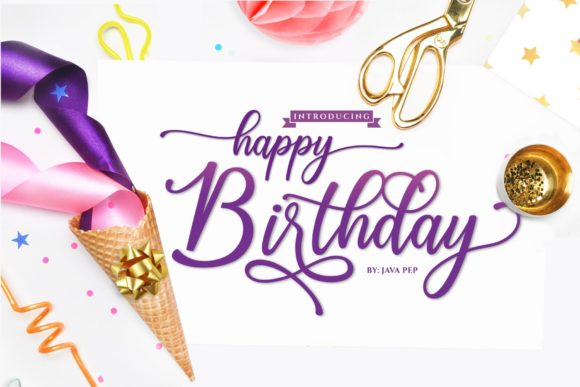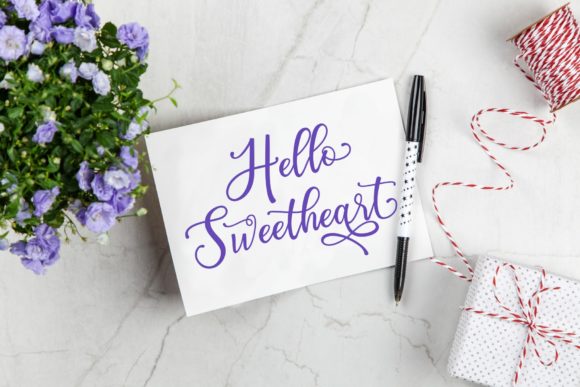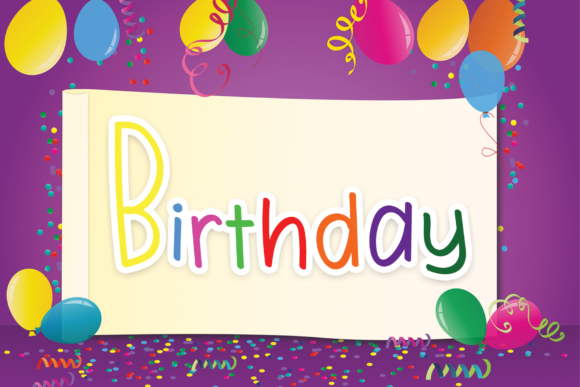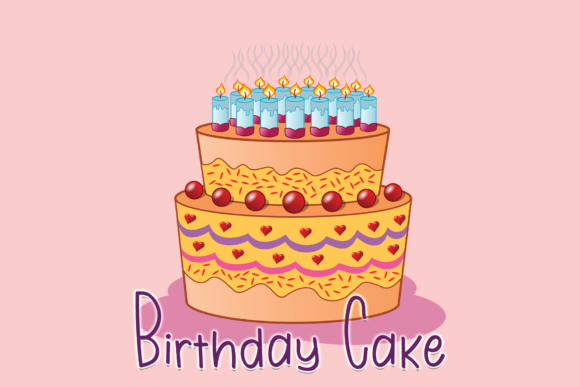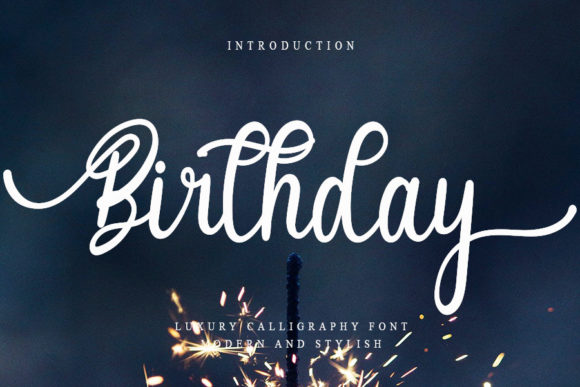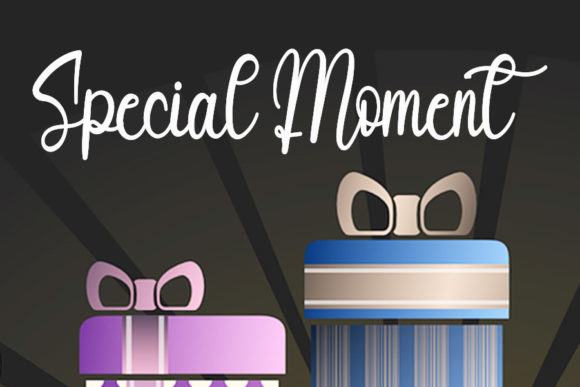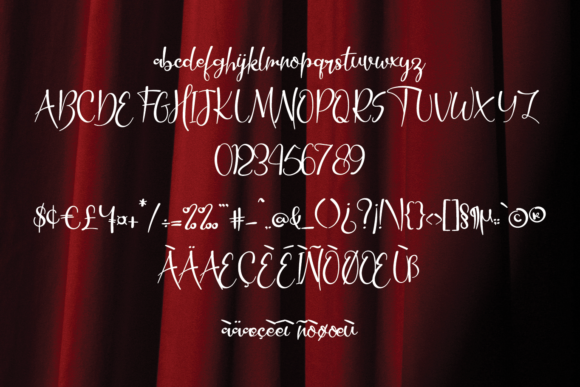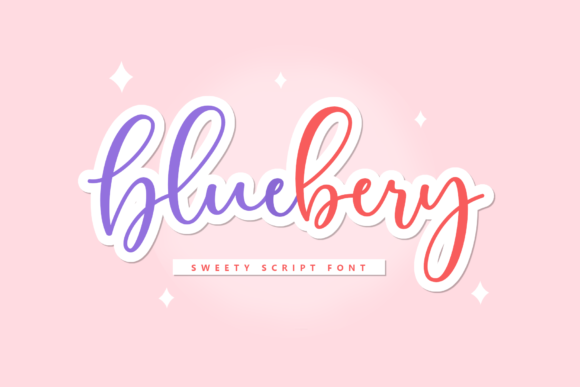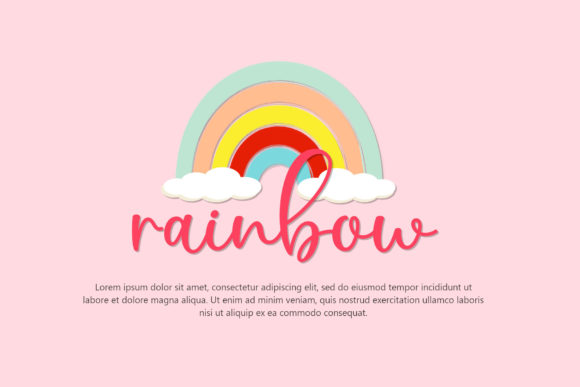
21 Best Birthday Script Fonts to Elevate Your Celebratory Designs
Planning a special event requires attention to every detail, from the color palette to the paper stock. However, nothing sets the tone quite like professional-grade birthday script fonts. Whether you are drafting elegant party invitations, designing personalized greeting cards, or crafting festive banners, the right typography can transform a simple message into a memorable keepsake. Our carefully curated list explores the most versatile and eye-catching script styles available today.
Top 21 Birthday Script Fonts for Every Occasion
Daisy Birthday Font
This charming, flowy handwritten typeface is the perfect choice for creating whimsical birthday-themed designs, invitations, and cards using professional-grade birthday script fonts. Its organic feel conveys warmth and joy.
Birthday Graduatings Font
An elegant and celebratory typeface, perfect for designing greeting cards, graduation invitations, and other special festive occasions. It brings a polished look to your stationery suite.
Write Birthday Font
This delightful birthday script font features charming, fluid lettering that brings a professional and joyful touch to party invitations and greeting cards.
Birthday Font
This charming, celebration-themed script font brings a playful yet sophisticated touch to your greeting cards. Using high-quality birthday script fonts ensures your design stands out with style and elegance.
Birthday Present Font
This delightful handwritten typeface is perfect for crafting festive cards and personalized gifts. Its effortless style adds warmth to any creative project.
Birthday Daddy Font
Bring a playful mood and personal charm to your celebratory projects. This font is an ideal choice for invitations and banners.
Happy Birthday Font
As a fantastic option among professional birthday script fonts, this typeface masterfully combines playful energy with charming handwritten aesthetics.
Birthday Font
This charming handwritten style is perfect for festive cards and invitations, adding an elegant touch to any project.
Style Birthday Font
This delightful handwritten typeface brings a sense of joy to any design project requiring a personal, bespoke touch.
Birthday Christmas Font
Ideally balancing festive playfulness with elegance, this typeface is the perfect addition to any collection of birthday script fonts for seasonal celebrations.
Birthday Font
Combine playful typography with elegant curves using this versatile typeface, perfect for event invitations.
Master Birthday Font
This stylish typeface is perfect for crafting elegant invitations and greeting cards, adding a sophisticated touch to your festive designs.
Annets Birthday Font
Annets Birthday is a playful script font that complements any festive occasion. Its calligraphic letterforms bring unique personality to your projects.
Bluebery Font
Bluebery is a must-have among birthday script fonts, adding a whimsical, personalized touch to your thematic party stationery.
Its My Birthday Font
This celebratory handwritten typeface is perfect for all festive decor in the classic style of professional birthday script fonts.
Love Birthday Font
Love Birthday is an elegant typeface perfect for crafting charming cards. Its fluid strokes bring warmth to any project.
Happy Birthday Font
Highlight your elegant and playful style with this excellent choice from the range of birthday script fonts.
Birthday Valentine Font
This typeface features fluid strokes and a romantic aesthetic. Its elegant style adds a touch of tenderness and playfulness to cards and invitations.
Birthday January Font
An elegant and celebratory script font, this is perfectly suited for creating eye-catching invitations and greeting cards within the birthday script fonts category.
Birthday Font
This elegant and celebratory font is the perfect choice for any design project centered around birthday themes and joy.
Kinder Birthday Font
This playful and charming handwritten typeface is perfect for children’s parties, invitations, and themed decorations.
Conclusion
Selecting the perfect font can define the success of your creative work. Whether you aim for whimsical, professional, or romantic, these 21 options provide a robust foundation for all your design needs. Don’t underestimate the power of high-quality typography in making your celebrations truly unforgettable.